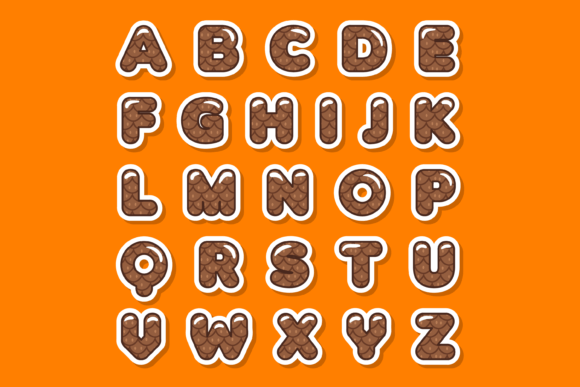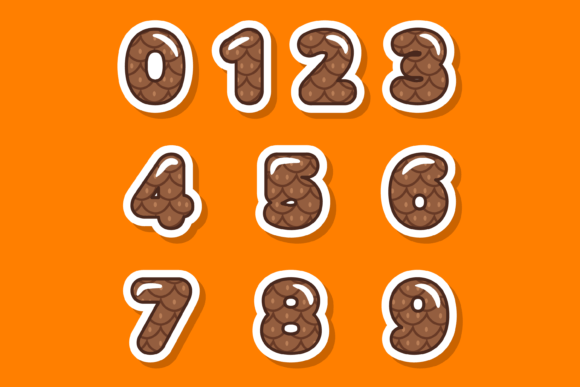
Introduction to Pinecone Font
Have you ever been in the middle of a creative project, pouring your heart and soul into a design, only to realize that something is missing? A spark of inspiration is needed to take your project from good to great, and that’s exactly where the Pinecone Font comes in.
Designed specifically for winter and Christmas, this high-quality font is a game-changer for designers looking to add a touch of magic to their creations. With its transparent background and color font capabilities, the Pinecone Font is a versatile design resource that can be used for custom designs, DIY crafts, or any project that requires a lovely touch.
As a valuable addition to your design arsenal, the Pinecone Font is a must-have for anyone looking to elevate their creative projects. Whether you’re a seasoned designer or just starting out, this font is sure to bring a touch of wonder to your work.
Pinecone Font Key Features
- High-quality vector design for use in creative projects, ideal as a design resource.
- Includes transparent background for seamless integration into various design elements.
- Font size: 20,000+ glyphs, covering a wide range of languages and characters.
- High-resolution design, suitable for use in print and digital media.
- Unique characteristics include a natural, organic feel and intricate details.
- Perfect for designers looking for a distinctive, high-quality font for their creative project.
Honest Review: Pinecone Font
As a designer, I’m always on the lookout for high-quality design resources to elevate my creative projects. The Pinecone Font is one such find that has caught my attention lately. Here’s my honest review of this beautiful font.
- ✨ Unique and playful design aesthetic that’s perfect for whimsical projects.
- ✨ High-quality font files that render beautifully across various devices.
- ✨ Transparent background, making it easy to use on any design background.
- ⚠️ Limited character set, which might be a concern for more complex projects.
- ⚠️ Not ideal for body text, as it’s more suited for headings and titles.
Overall, the Pinecone Font is a fantastic design resource that’s perfect for creative projects that require a unique touch. With a free download available, it’s a great option for designers on a budget. While it may have some limitations, its high-quality design and transparent background make it a valuable addition to any design arsenal.
How to Use Pinecone Font
Pinecone Font is a unique, high-quality design resource ideal for creative projects. It features a transparent background, making it perfect for layering and blending with other elements.
Tips for Getting the Most Out of Pinecone Font
Experiment with different font sizes, colors, and layering techniques to create unique and eye-catching designs. Use the transparent background to blend the font with other elements and create a cohesive look.
Pinecone Font is perfect for various creative projects, such as logos, brochures, posters, and social media graphics. Its unique design and high-quality make it an excellent choice for any design resource.
Is the Pinecone Font suitable for designs with a transparent background?
Yes, the Pinecone Font is designed to be used with a transparent background. Its transparent background feature allows you to easily layer it over other design elements, making it a versatile design resource for various creative projects.